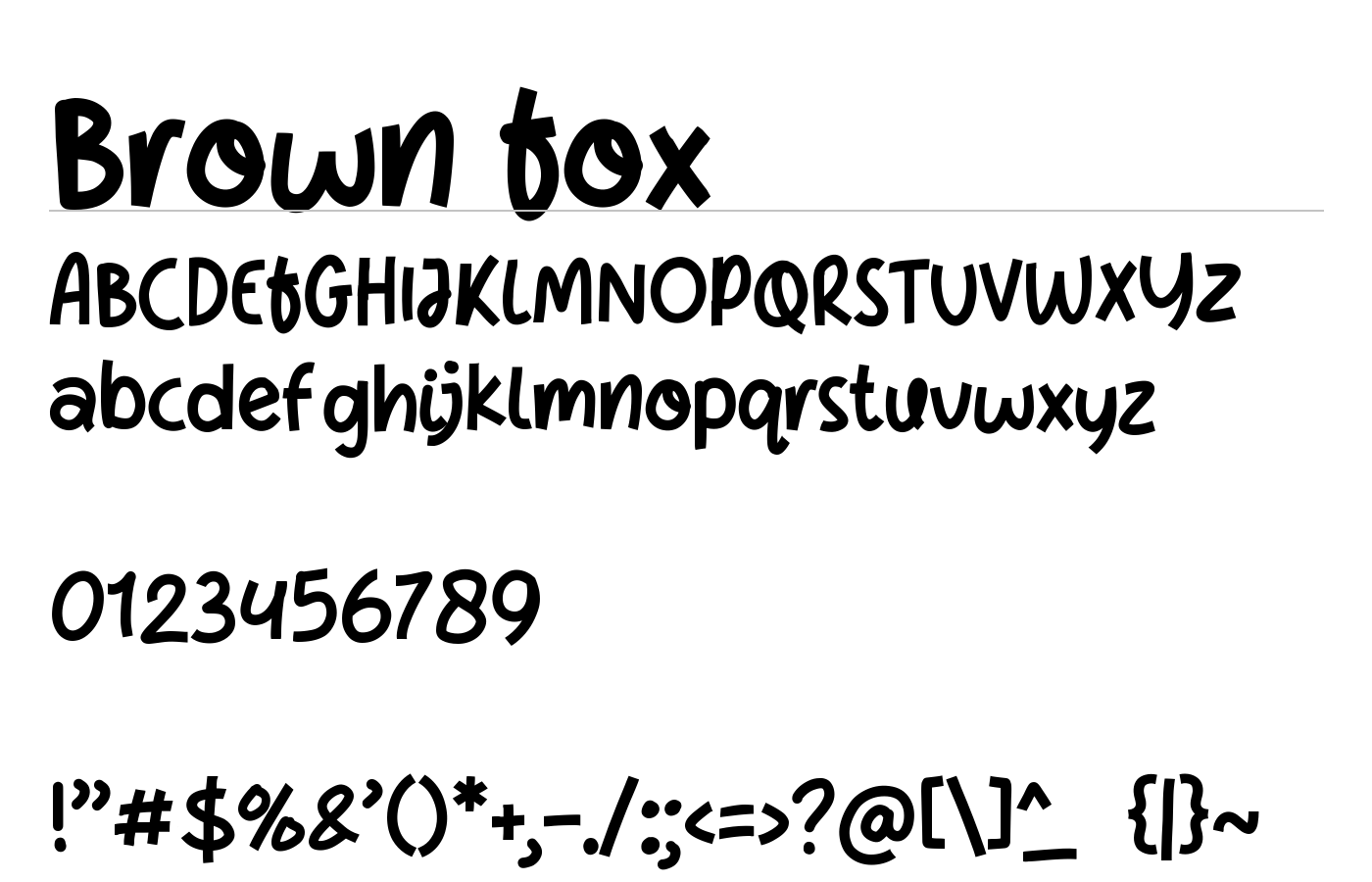
Brown Fox is a playful sans serif font with a casual, hand-drawn feel. Its irregular, slightly whimsical letter shapes and moderate weight give it a friendly and approachable personality, making it ideal for informal designs, children's books, and creative branding. This font works well in display settings where a fun and lively tone is desired.
Brown Fox Font
About Brown Fox Font
| Font family | Brown Fox Font |
| Designer | Excel R Florendia |